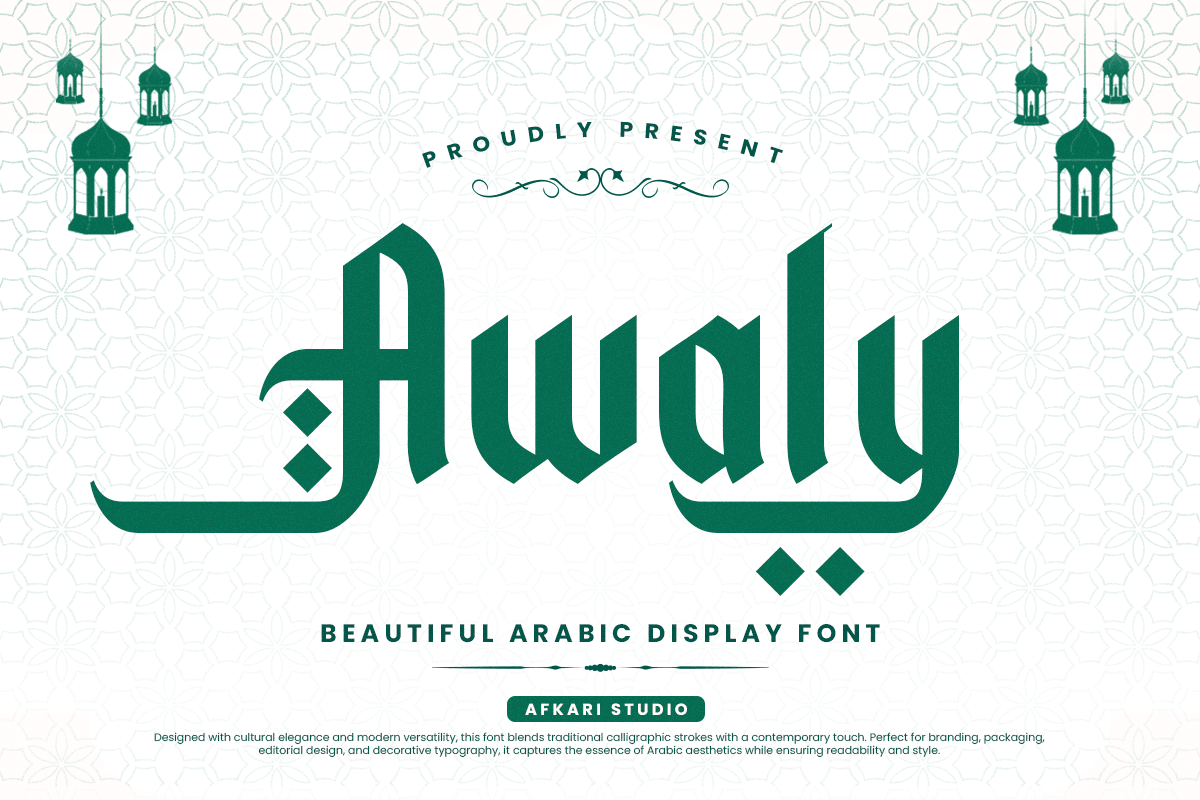
Awaly – Arabic Font Style Typeface Font
Designed by Afkari Studio
About Awaly – Arabic Font Style Typeface
Awaly is a beautifully crafted Arabic-style typeface that blends traditional calligraphic elegance with modern versatility. Designed to capture the fluidity and grace of Arabic letterforms, this font is perfect for branding, packaging, headlines, posters, and Islamic designs.